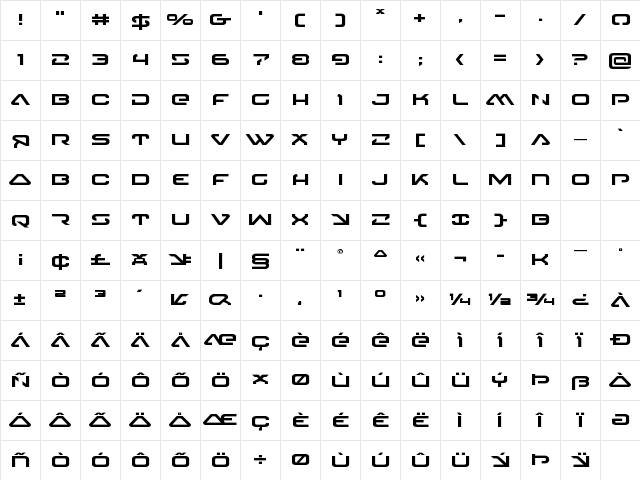
4114 Blaster Expanded Free Font
4114 Blaster Expanded
Style: Expanded
Design Context for 4114 Blaster
4114 Blaster is a composed and adaptable typeface that performs quietly and consistently across a wide range of design contexts.
Pro Tip: Use 4114 Blaster in both headline and body roles to test its range before committing to a single application.